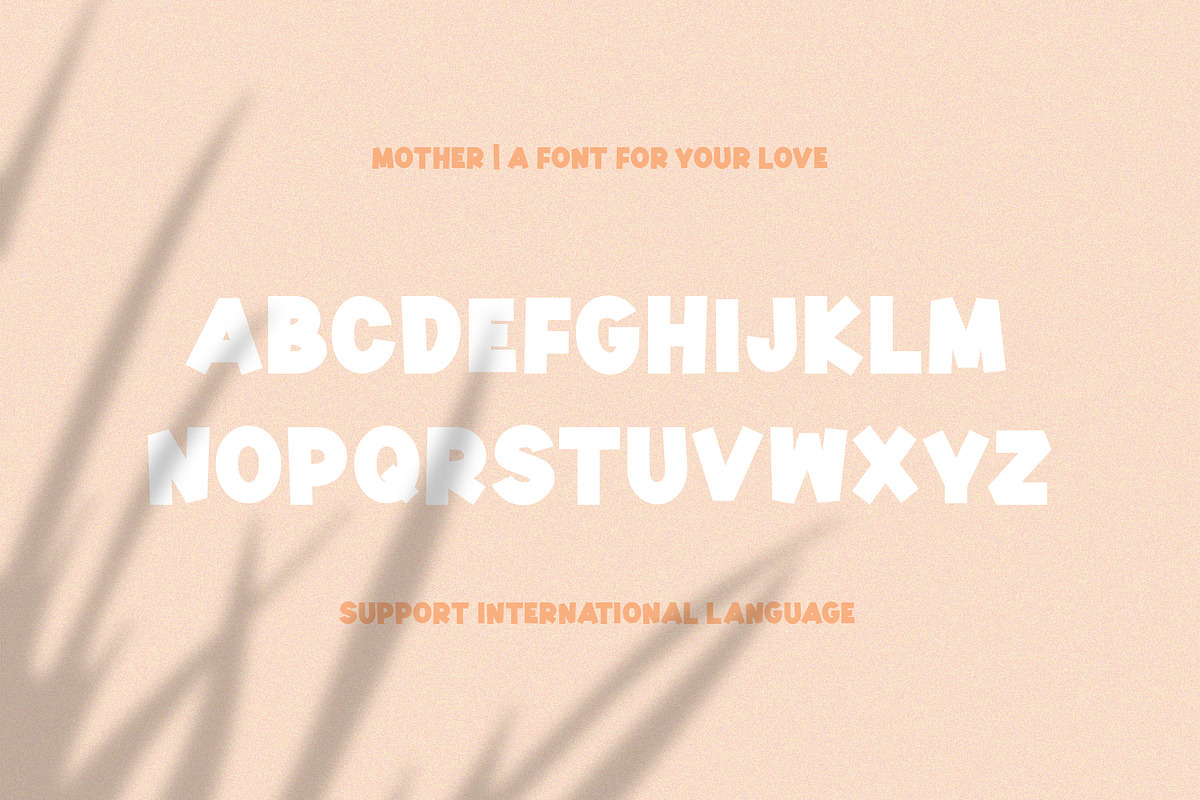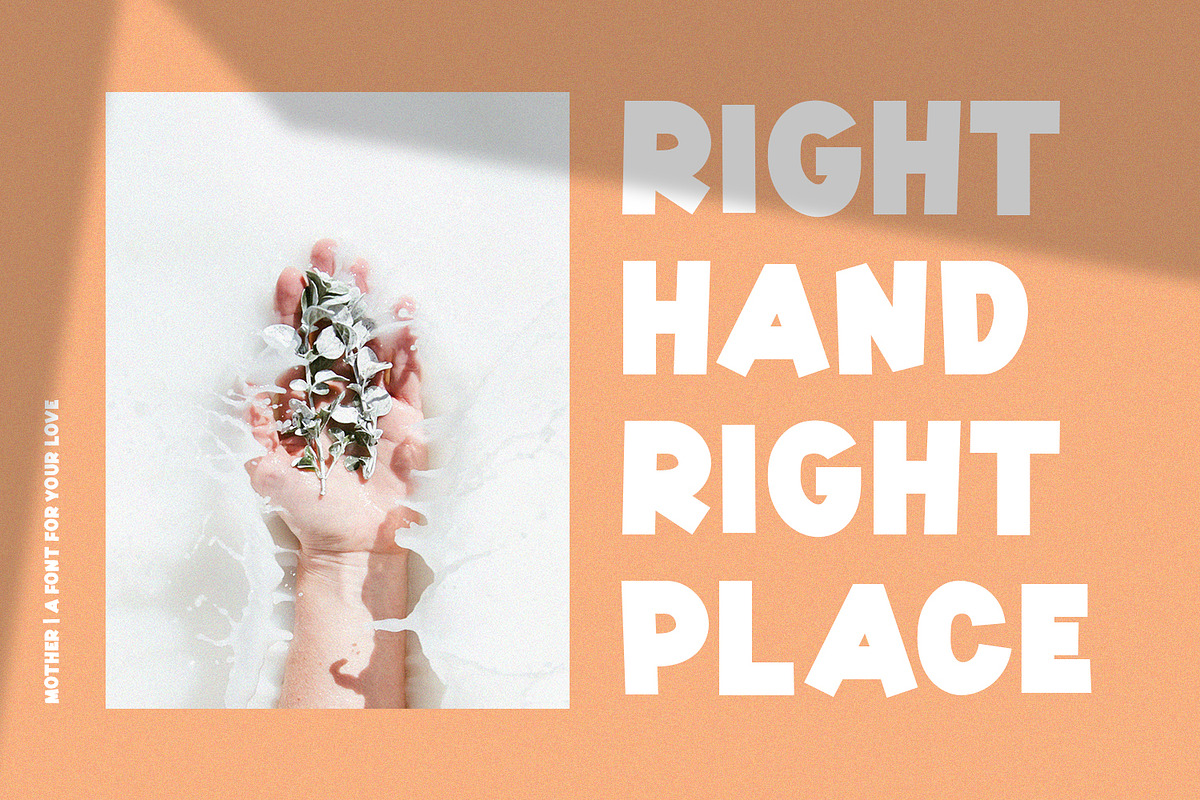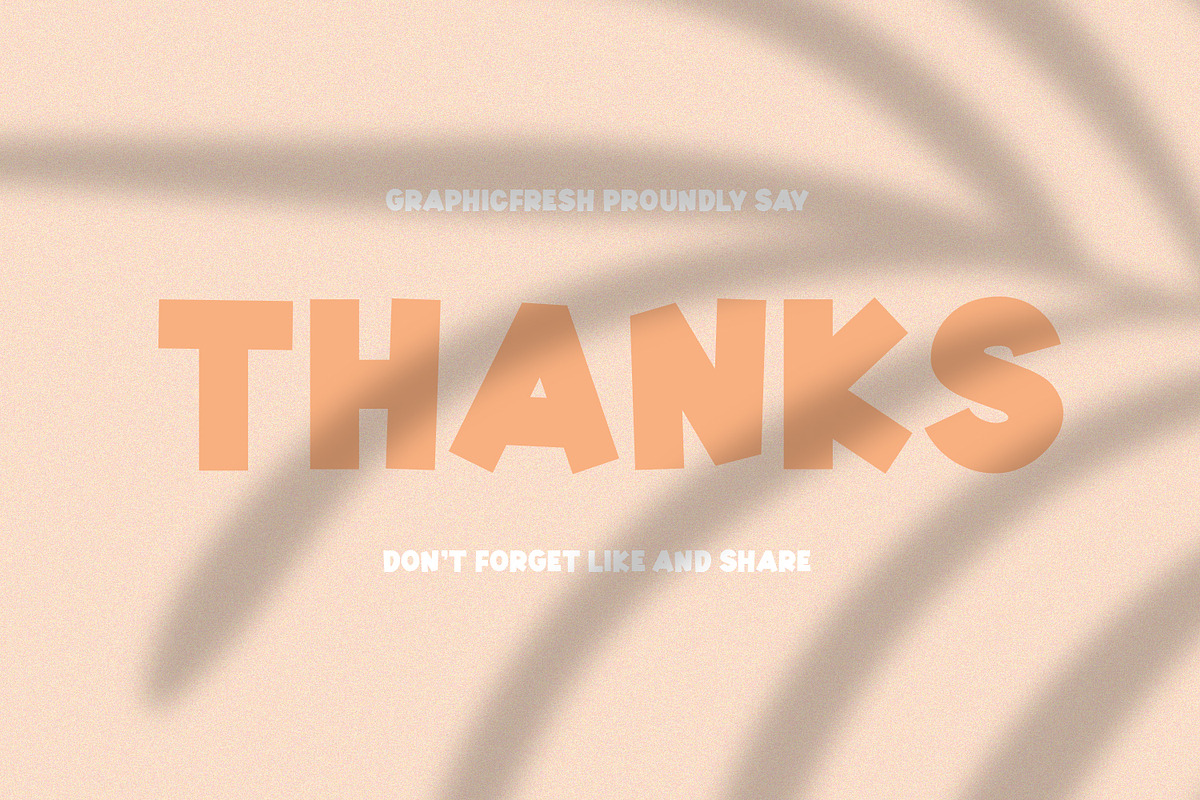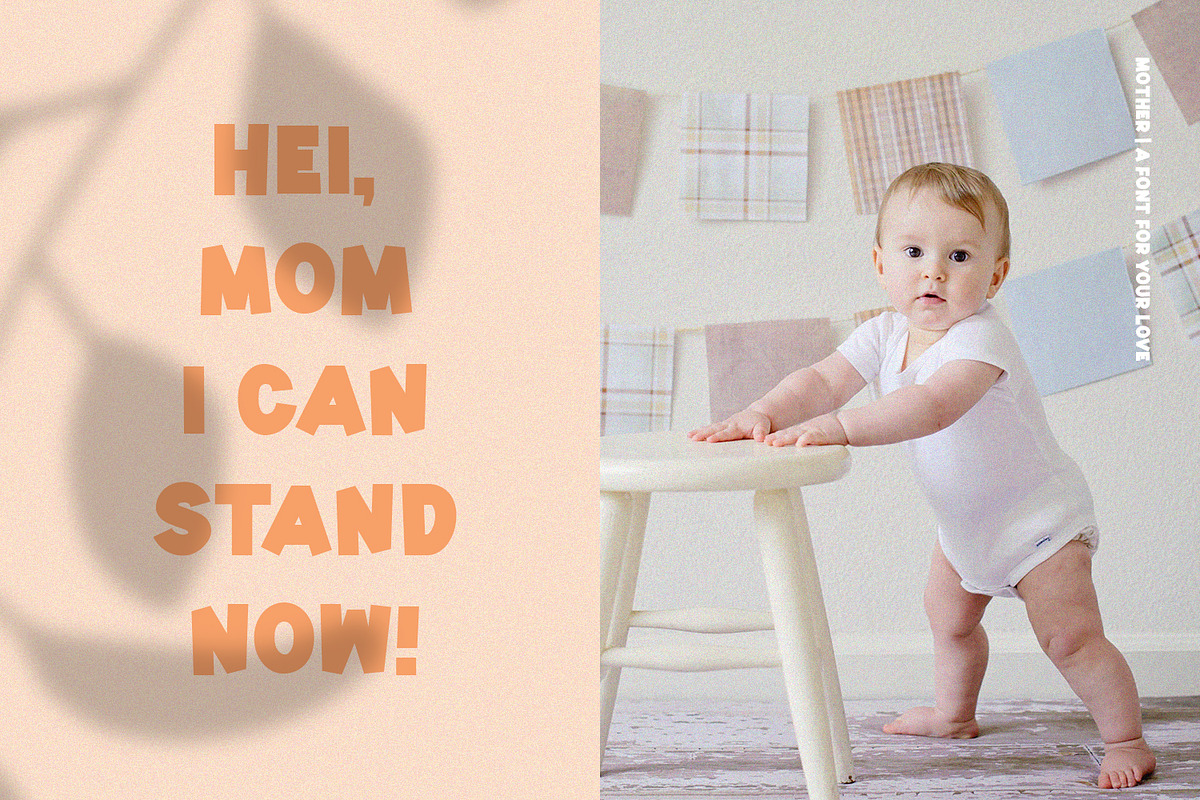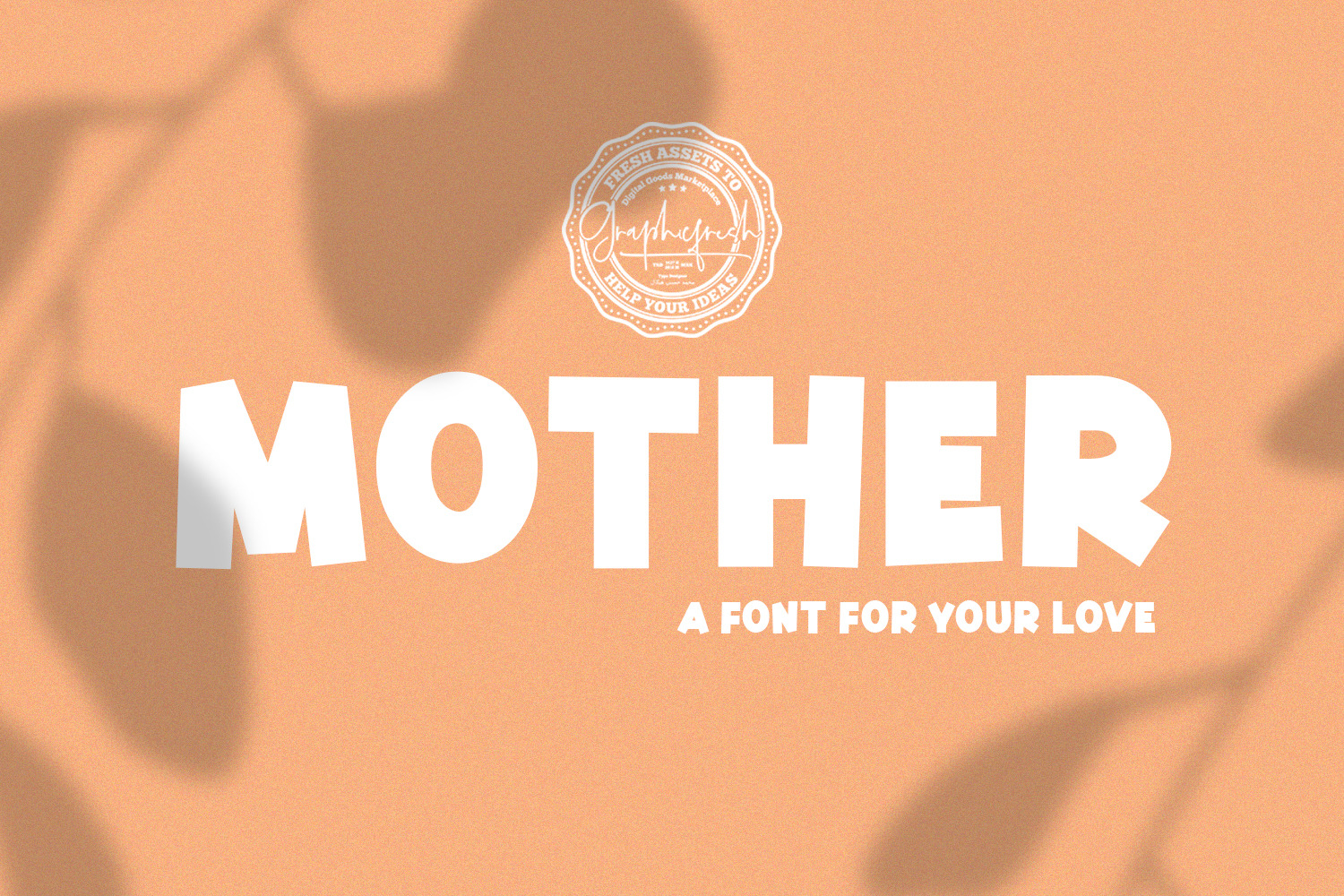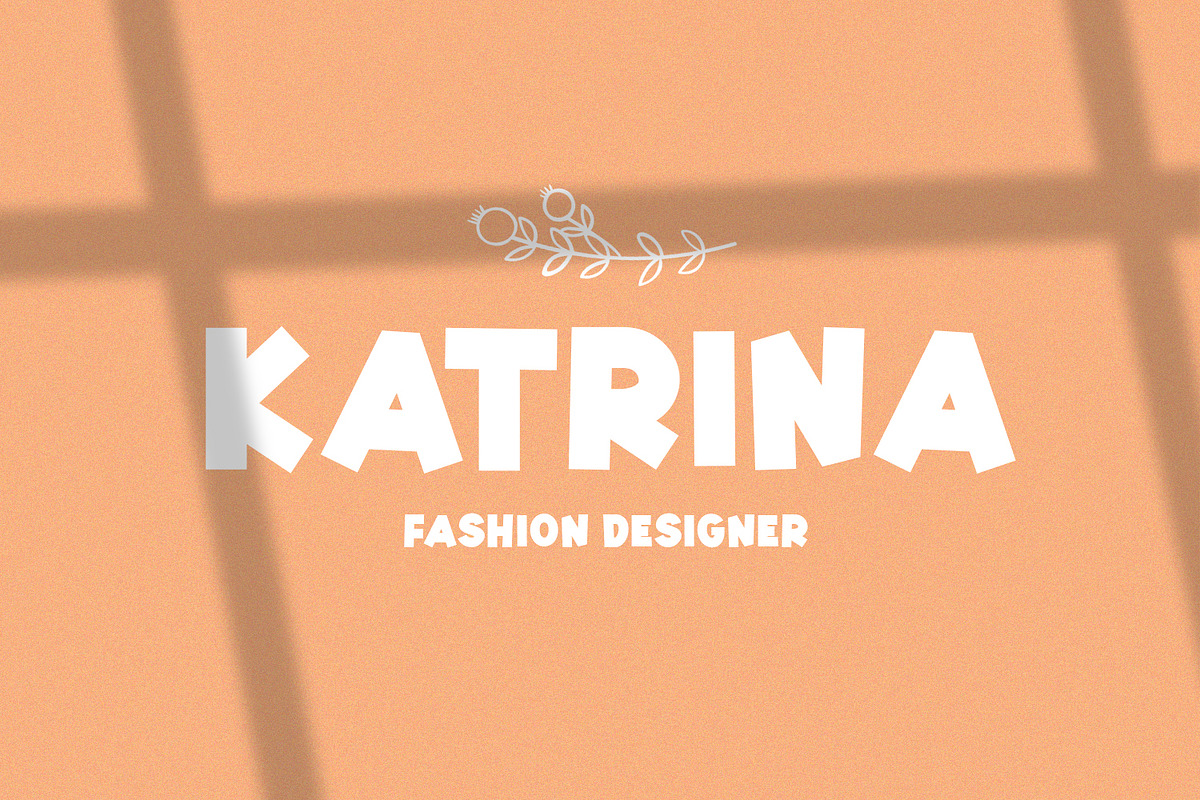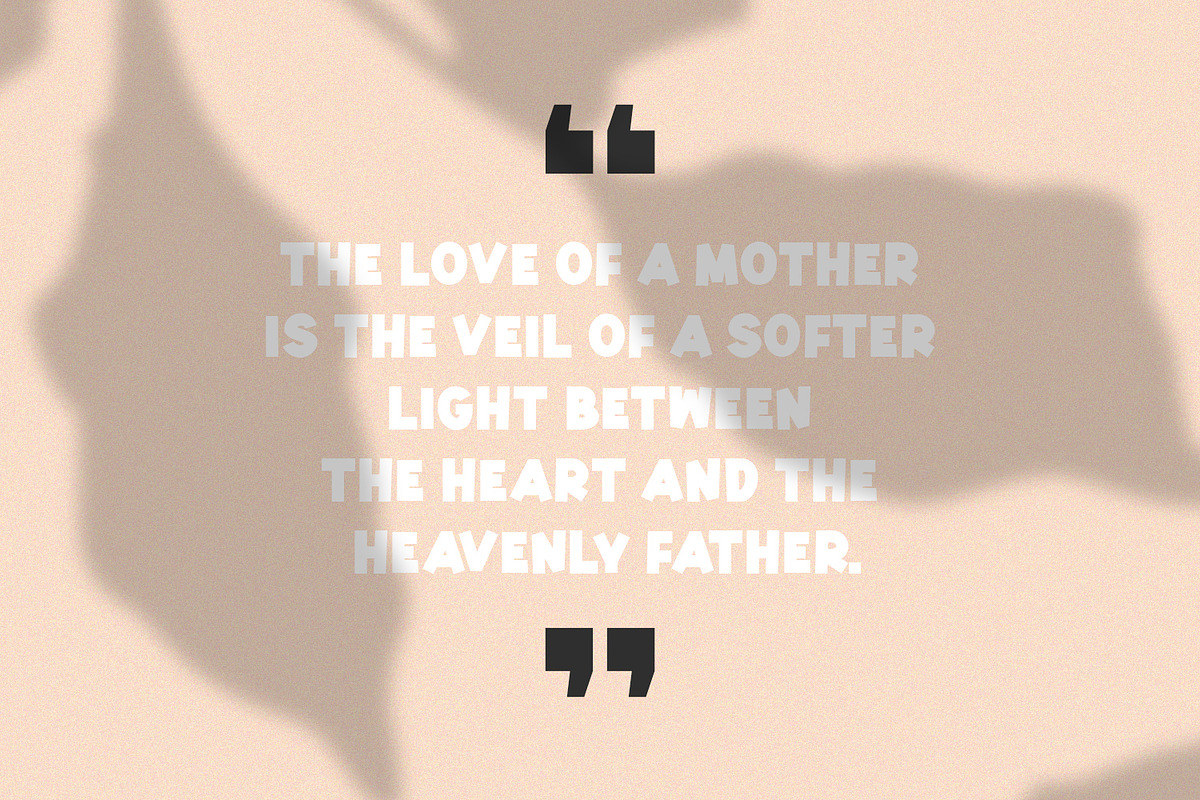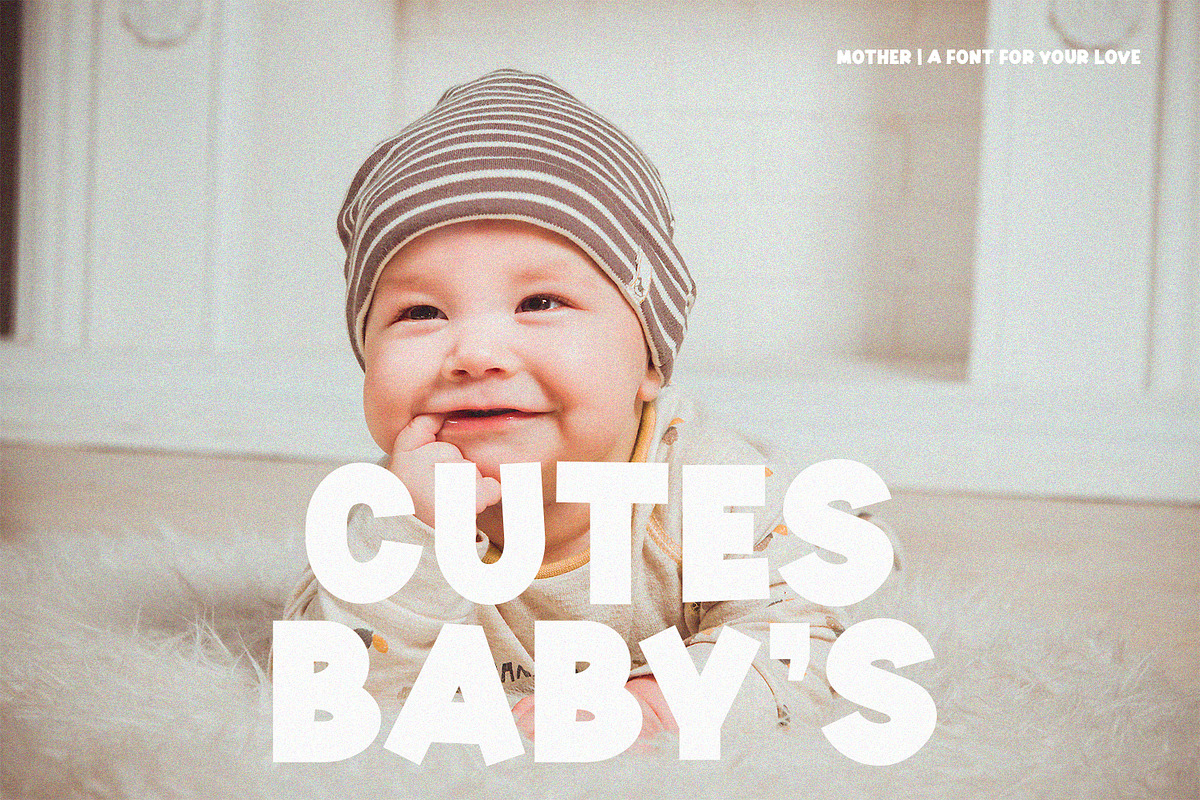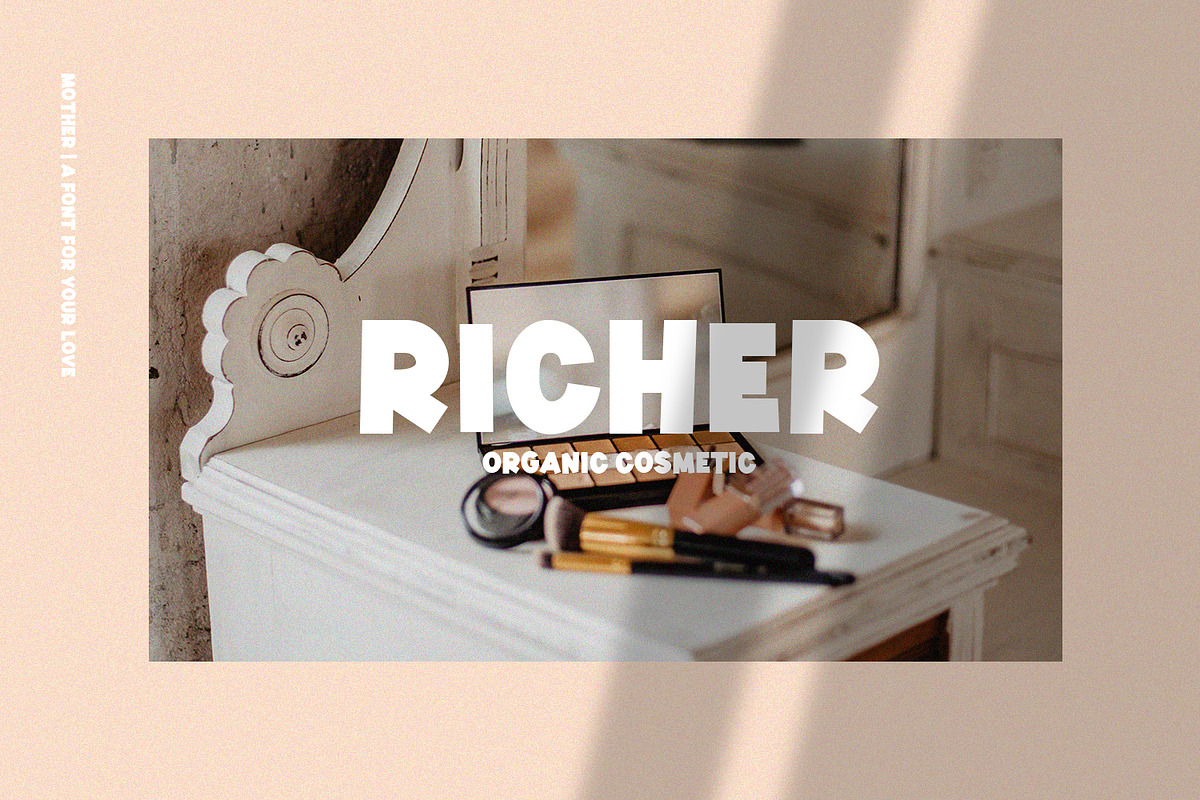
Mother | A Font for Your Love
Hi everyone, now we are specifically making a font for a mother. Do you feel like a mother? or are you a prospective mother? or do you have a mother? Exactly you choose this font. Because this font is made for someone you love most in life. That is your mother.
Introducing Mother Font. It comes with an elegant and feminine style which is perfect to make any design stand out! This font is perfect for branding, wedding invites, magazines, mugs, business cards, quotes, posters, and more.
Mother Type Features:
- All Caps Font
- Suitable for Headlines, Logotypes, Signs, Posters, Letterhead, T-Shirt and many more.
- Support International Language